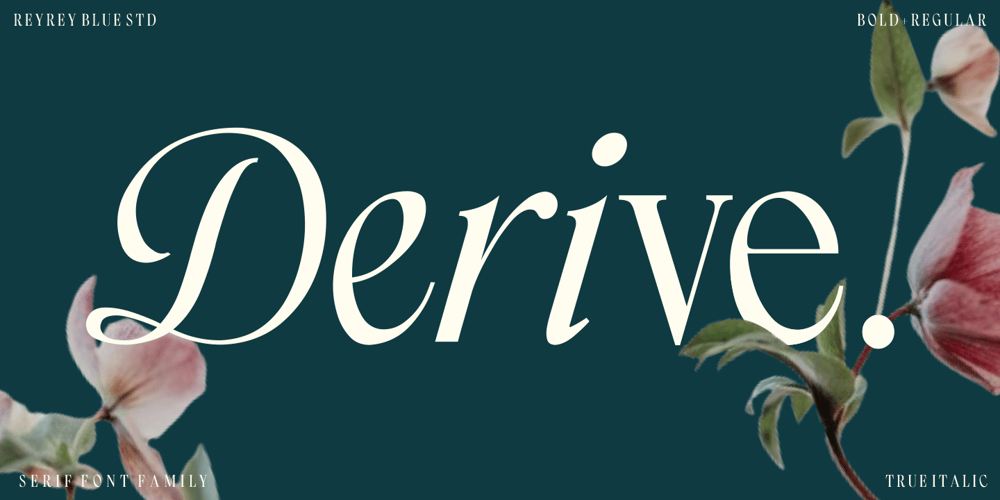
Derive Font Family was designed by Risca Anitawati and published by Reyrey Blue Std. Derive contains 4 styles and family package options. Introducing, Derive Font Family. It’s combined with a classy and modern style. This font family is also equipped with an italic calligraphy version in the upper letters, complementing the elegance of the font design. It consists of 4 styles regular, italic, bold, and bold italicThis type of font is perfectly made to be applied especially in logos, headlines, signage, and the other various formal forms such as invitations, labels, logos, magazines, books, greeting/wedding cards, packaging, fashion, makeup, stationery, novels, labels or any advertising purpose. This product was created to help you make your digital images even more beautiful and unique.